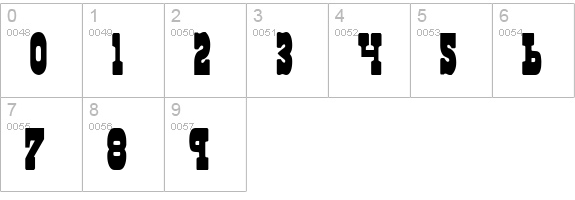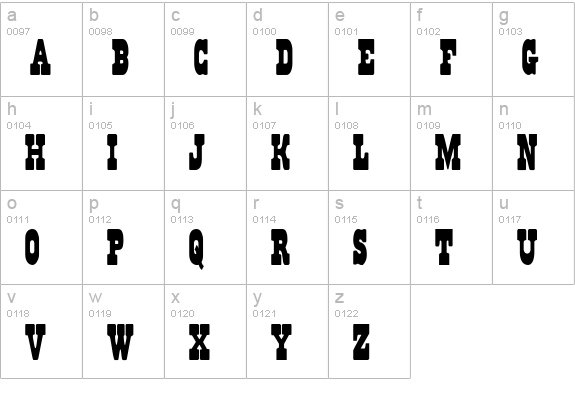
Regulators Condensed Font Details
Regulators Condensed is a distinctive, condensed-width variant in the Regulators typeface family \xE2\x80\x94 well suited to design and typography projects.
Regulators Condensed font is a modern and sleek typeface that exudes sophistication and professionalism. With its condensed letterforms, it is perfect for headlines, titles, and any other text that needs to make a bold statement. This font is meticulously designed with attention to detail, resulting in clean lines and sharp edges that give it a contemporary and elegant look. The condensed nature of the letters allows for maximum impact in minimal space, making it an ideal choice for projects that require a compact yet impactful design. Regulators Condensed is versatile and can be used in a wide range of design applications, from print materials such as brochures and posters to digital platforms like websites and social media graphics. Its readability and legibility ensure that your message will be effortlessly conveyed to your audience. What makes Regulators Condensed even more appealing is that it is available for free download at FontsMarket.com. This means that you can easily access and use this high-quality font without any cost. Whether you are a design professional, a student, or simply someone looking to enhance their creative projects, this font is a valuable addition to your arsenal. Embrace the power of Regulators Condensed font and elevate your designs to new heights. Its contemporary style and free availability make it a must-have for anyone seeking to make a lasting impression. Download Regulators Condensed today from FontsMarket.com and unleash your creativity with this remarkable typeface.